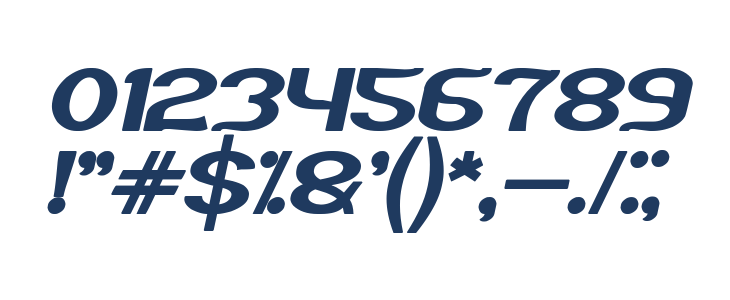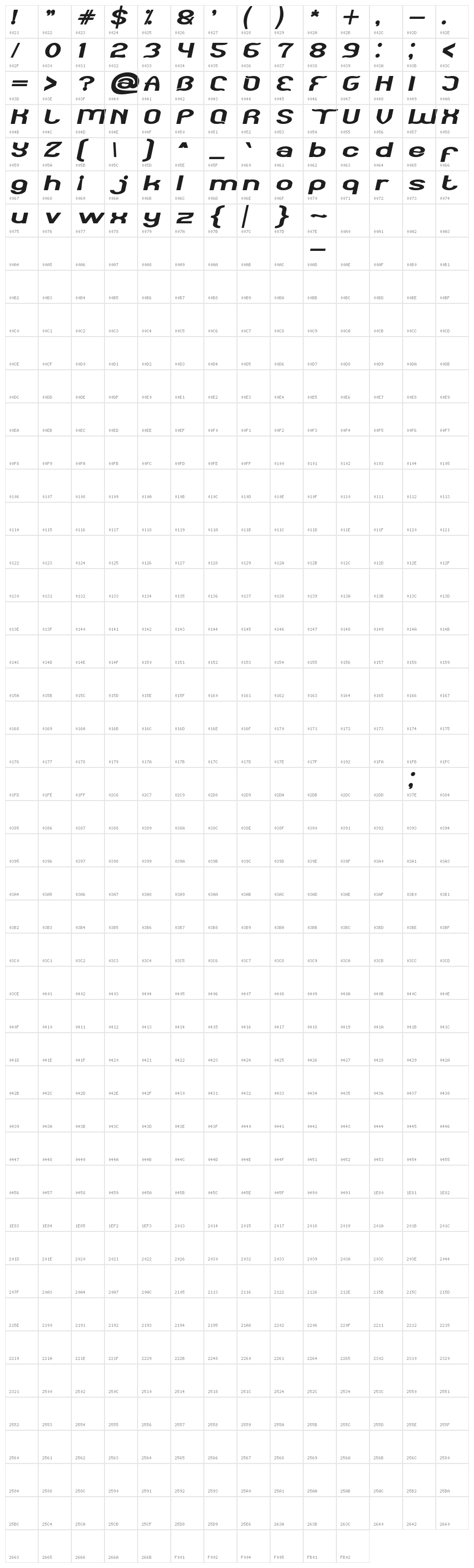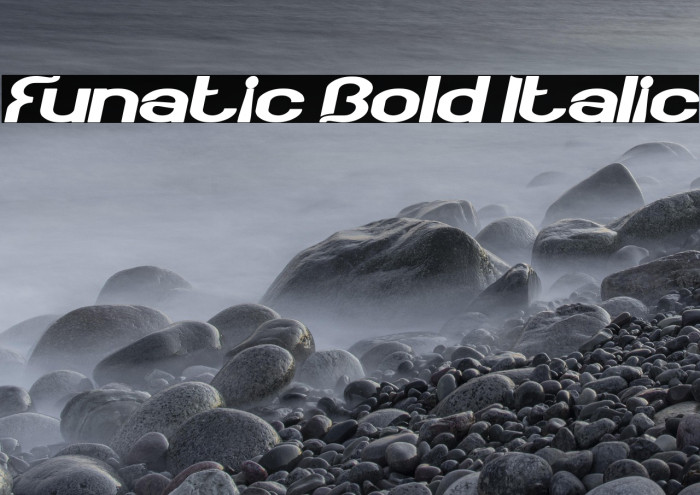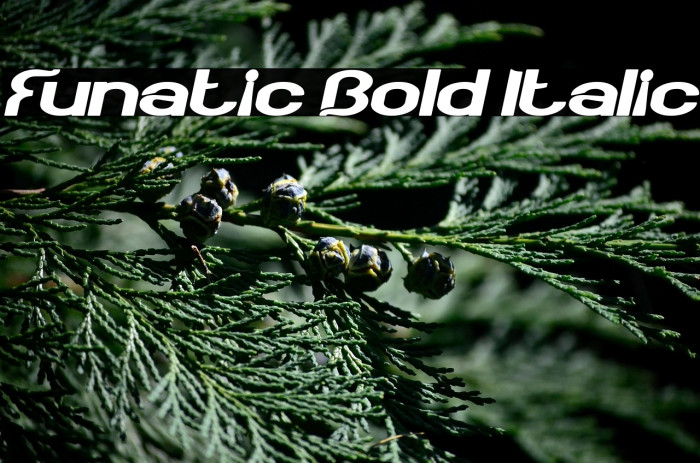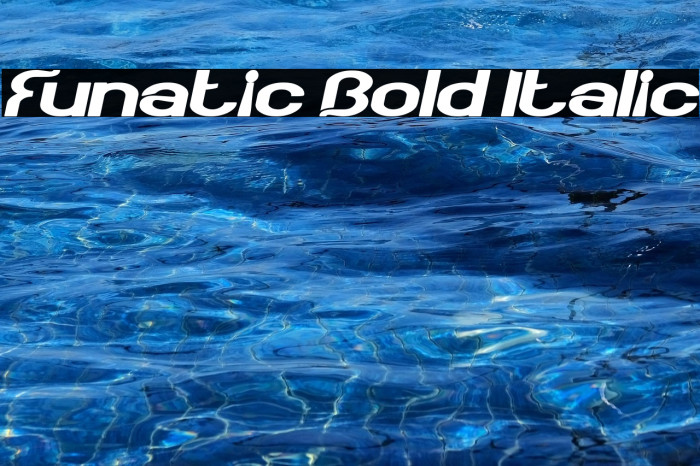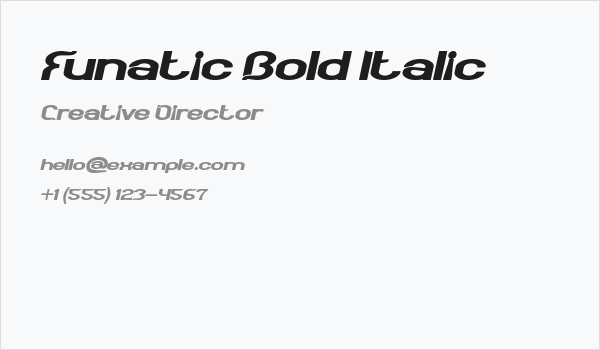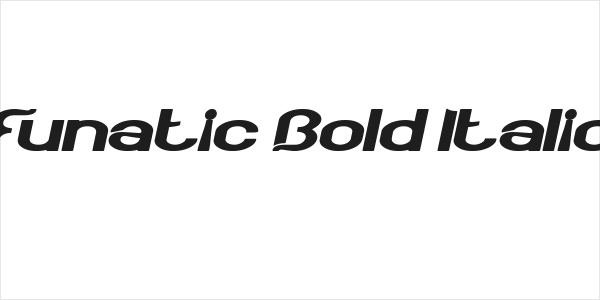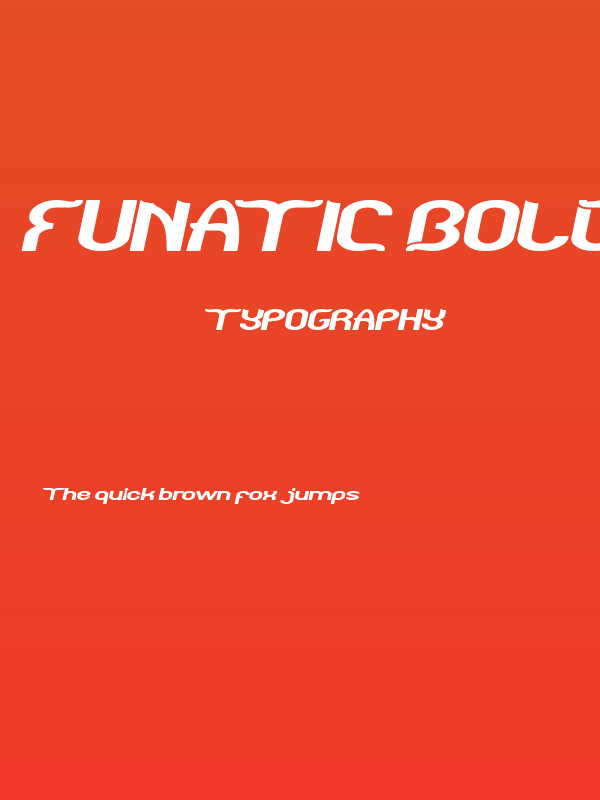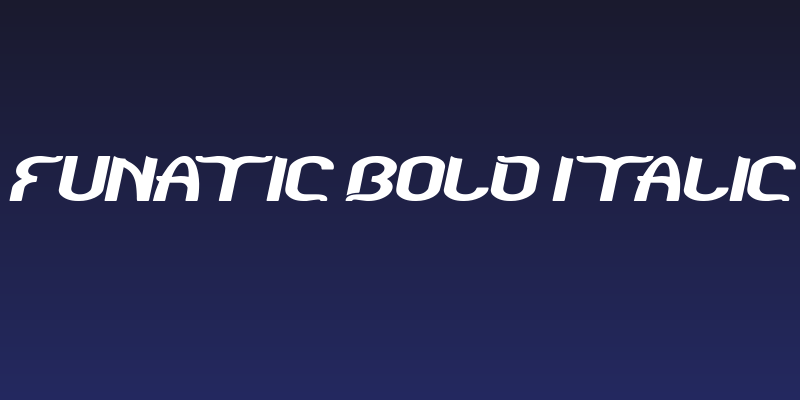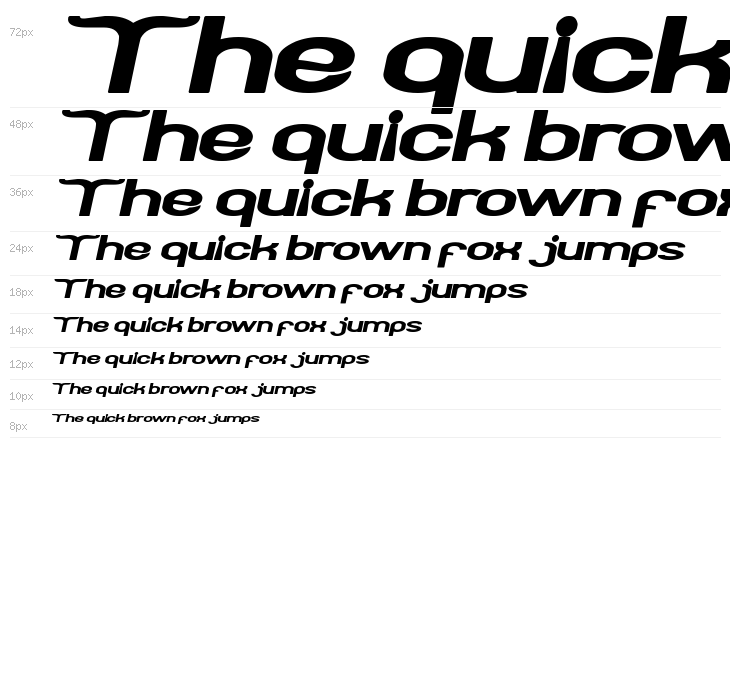
Funatic Bold Italic Font
Funatic Bold Italic Description
This font features a bold and italicized style with a playful and dynamic appearance. The characters are slightly slanted, giving a sense of motion and energy. The strokes are thick and consistent, contributing to its boldness, while the italic slant adds a touch of elegance and flair. The font maintains a uniform width across all characters, ensuring readability and balance. Its unique design makes it stand out, with a modern and slightly futuristic feel. The spacing between characters is normal, allowing for clear legibility while maintaining its distinctive style.